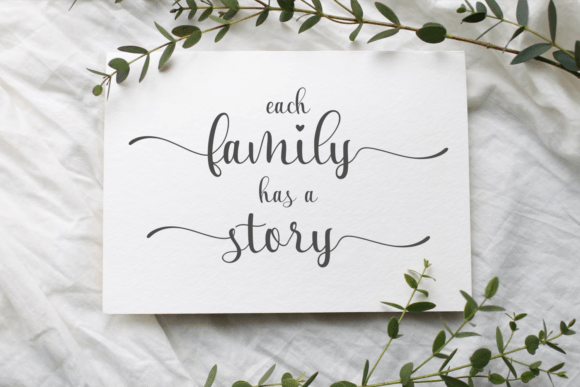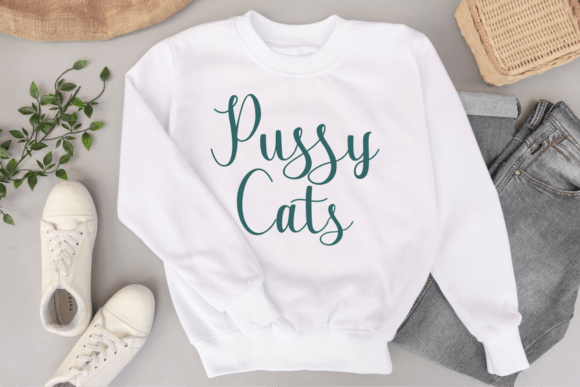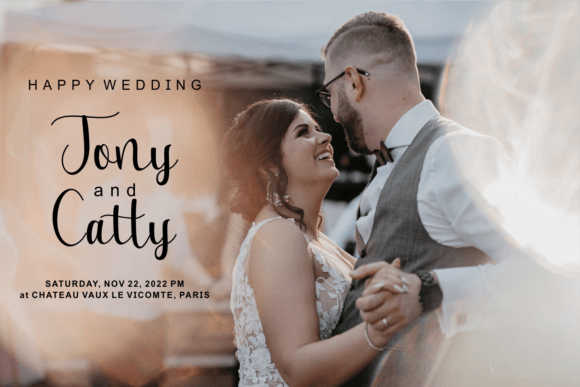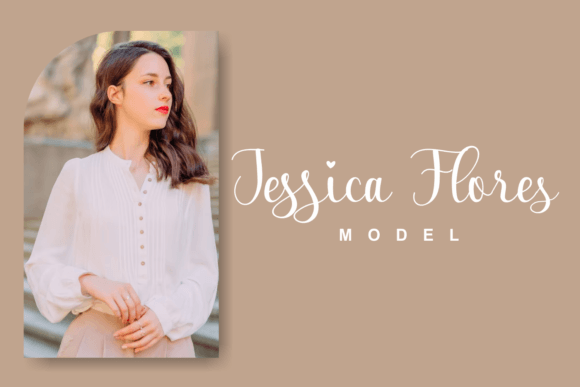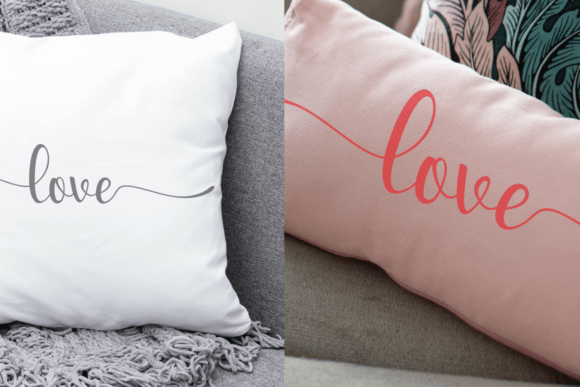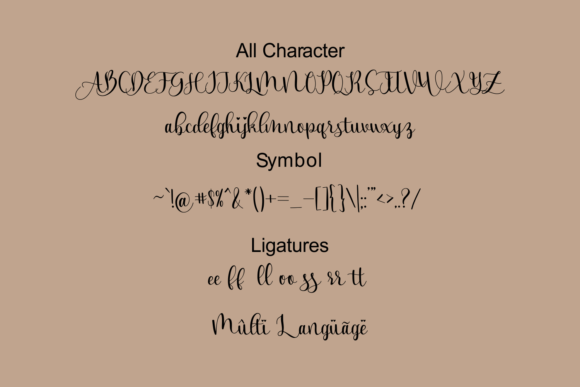
The Birth of Authentic Handwriting in Digital Design
Have you ever stared at a blank piece of paper, pen in hand, waiting for the perfect idea to strike? That’s where the magic happens – in the moment when creativity flows freely and the world seems full of possibilities. For designers, this moment is a constant pursuit, and the right tools can make all the difference. Enter Kirana Font, an original handwritten font that captures the essence of authentic handwriting.
Kirana Font is designed to bring a touch of personality to your designs, from whimsical invitations to heartfelt quotes on apparel. With its flowing script and variety of alternative letters, it’s the perfect addition to any designer’s toolkit. The value of Kirana Font lies in its ability to evoke emotion and connection, making it a valuable asset for designers seeking to create truly memorable experiences.
Kirana Font Key Features
- Font Family: Kirana is a Unicode font family designed for various Indian languages, including Hindi, Marathi, Gujarati, and more.
- Character Set: Supports a wide range of characters, including Devanagari, Gujarati, and other regional scripts, ensuring effective communication in diverse languages.
- Language Support: Designed to support multiple languages, including Hindi, Marathi, Gujarati, and others, making it an ideal choice for multilingual content.
Kirana Font Review
I recently had the chance to work with the Kirana font, and I must say it’s a unique addition to any design project. ✨ The first thing that caught my attention was its elegant and sophisticated look. The font’s combination of curves and lines creates a sense of harmony and balance that’s perfect for a wide range of applications.
Here are some of the things that work well with the Kirana font:
- ✨ Elegant and sophisticated look: As I mentioned earlier, the font’s design is both beautiful and sophisticated, making it perfect for high-end projects.
- ✨ Good legibility: Despite its complex design, the font is still easy to read, which is a must for any font.
- ✨ Versatility: Kirana can be used for both body text and headings, making it a versatile addition to any design project.
- ⚠️ Limited font sizes: While the font looks great at larger sizes, it can become distorted at smaller sizes, which may limit its use in certain applications.
- ⚠️ Limited language support: Kirana only supports a limited number of languages, which may be a concern for projects that require a wider range of languages.
Overall, I would say that Kirana is a great addition to any design project that requires a sophisticated and elegant look. While it has some limitations, the font’s unique design and good legibility make it a worthwhile investment for designers looking to add some flair to their work.
Kirana Font is ideal for creating beautiful, hand-drawn-style text and graphics. Use it to add a personal touch to your designs, such as:
- Artistic quotes and posters
- Custom logos and branding
Remember to experiment with different font sizes, colors, and styles to get the most out of Kirana Font.
Alternatives to Kirana Font for Designers
Playfair Display is a luxurious and elegant script font, ideal for creating a high-end feel in designs. It is perfect for use in titles, headings, and other prominent text elements. Playfair Display has a more ornate and refined look compared to Kirana Font, making it suitable for formal and sophisticated designs.
Great Vibes is a modern and elegant script font that works well for creating a relaxed and casual atmosphere in designs. It is perfect for use in titles, headings, and body text. Great Vibes has a more fluid and organic look compared to Kirana Font, making it suitable for designs that require a creative and artistic feel.
Carolyna Pro is a modern and elegant script font that is perfect for creating a sophisticated and luxurious feel in designs. It is ideal for use in titles, headings, and other prominent text elements. Carolyna Pro has a more refined and polished look compared to Kirana Font, making it suitable for formal and high-end designs.